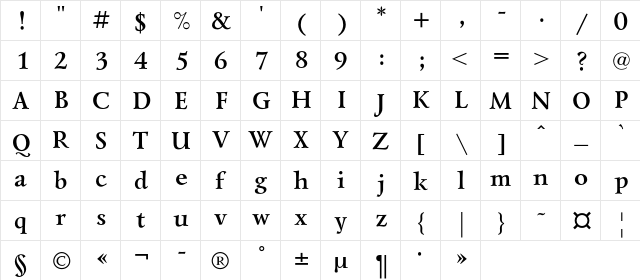
LazurskiC Bold
Design Context for LazurskiC Typeface
LazurskiC is a composed and adaptable typeface that performs quietly and consistently across a wide range of design contexts. The heavy weight commands attention and anchors typographic hierarchies.